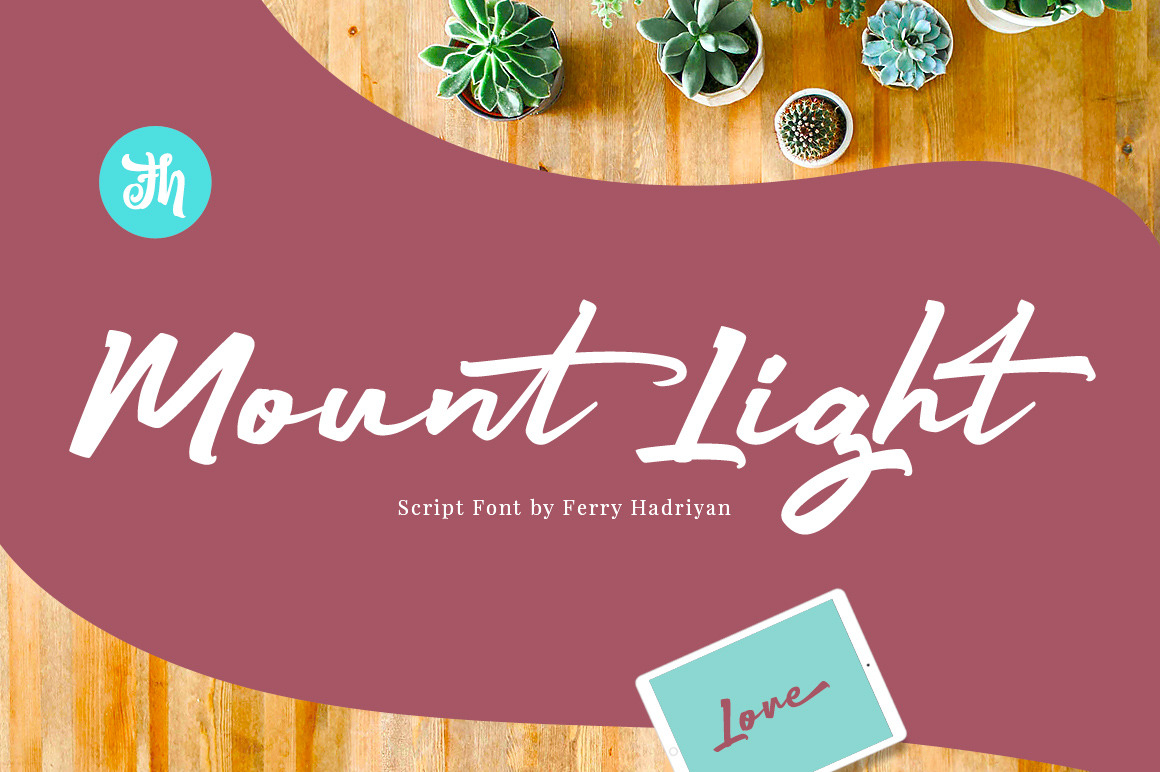
Mount Light - Script Font
Mount Light is script font with authentic calligraphy style, with opentype feature include of the font. Suitable for design, element design, wedding, event, t-shirt, logo, badges, sticker, and awesome work, etc...
Unique style fonts